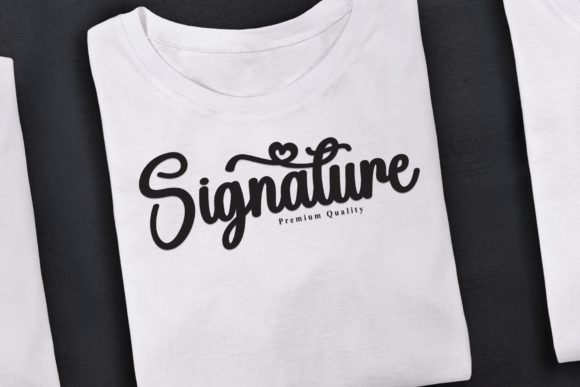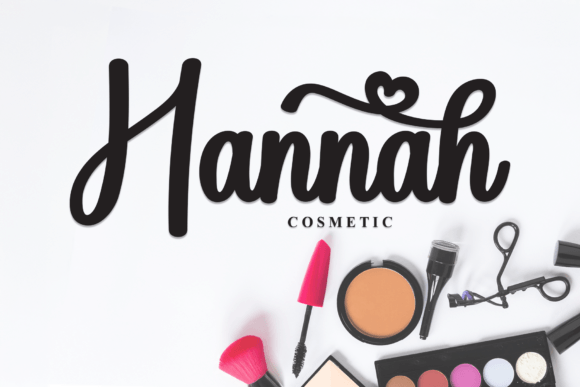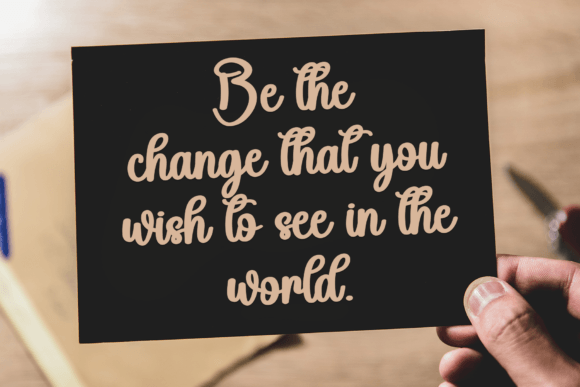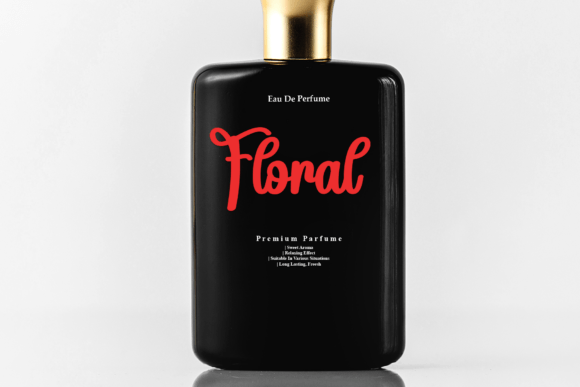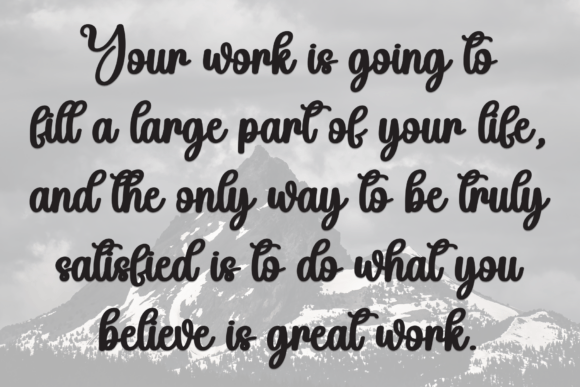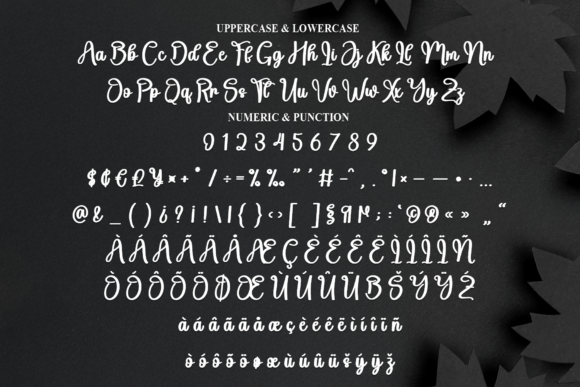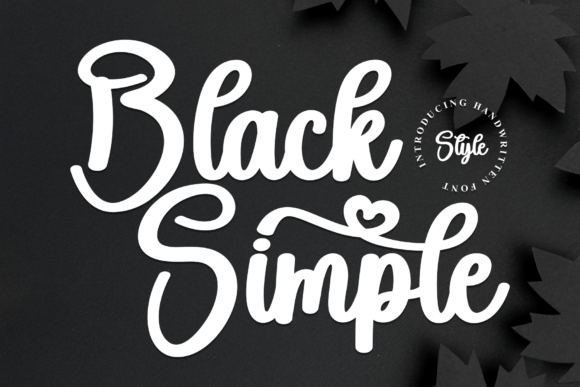
The Sweet Spot: Discovering the Charm of Black Simple Font
I’ll never forget the time I was working on a wedding invitation project, and my client asked for a font that was ‘sweet, friendly, and playful.’ I scoured the internet, tried countless fonts, but nothing seemed to fit the bill. That was until I stumbled upon the delightful Black Simple Font. It’s been a game-changer for me ever since, and I’m excited to share its charm with you! ✨
I’ve had the pleasure of working with Black Simple Font on several projects, and here’s what I think:
- ✅ Sweet and Friendly Vibes: This font exudes warmth and approachability, making it perfect for projects that require a personal touch.
- ✨ Playful and Fun: The subtle imperfections and handwritten feel add a touch of whimsy to any design.
- 💕 Versatile: It works beautifully for both digital and print projects, from wedding invites to social media graphics.
Now, I’m not saying it’s perfect. Here are a few things to keep in mind:
- ⚠️ Limited Formality: This font is best suited for informal projects; it may not be the best choice for more formal or corporate designs.
- 🤔 Glyph Limitations: While it has a range of glyphs, it may not have every special character or symbol you need.
A Practical Guide: Using Black Simple Font in Your Designs
The Story Behind Black Simple Font
While the origins of Black Simple Font are shrouded in mystery, it’s clear that the designer aimed to create a font that would bring joy and playfulness to any project. The result is a charming, handwritten display font that’s perfect for a wide range of creative applications.
Q: What type of projects is Black Simple Font best suited for?
A: Black Simple Font is perfect for informal projects like wedding invitations, greeting cards, social media graphics, and more.
Q: Does Black Simple Font support OpenType features?
A: Yes, Black Simple Font supports OpenType features, including Stylistic Alternates and Glyphs.